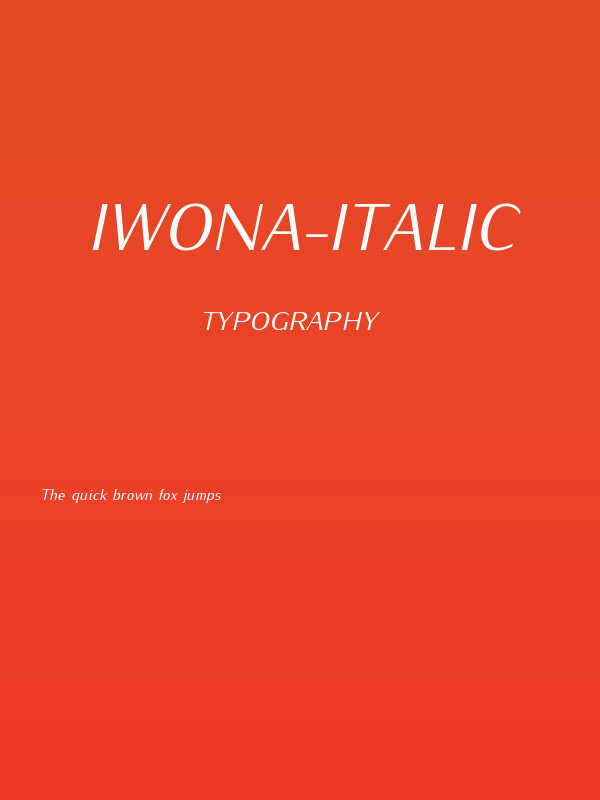
Iwona-Italic Font
Iwona-Italic Description
This font features a sleek and modern italic style, characterized by its clean lines and slightly slanted posture. The uppercase letters are tall and elegant, while the lowercase letters maintain a consistent flow, enhancing readability. The numerals are distinct and well-proportioned, complementing the overall aesthetic. Special characters are thoughtfully designed, ensuring versatility across various applications. The font's smooth curves and balanced weight make it suitable for both digital and print media, offering a professional yet approachable appearance.
| Proposed Projects | Ideal for branding, editorial design, websites, and advertising materials where a modern and professional look is desired. |